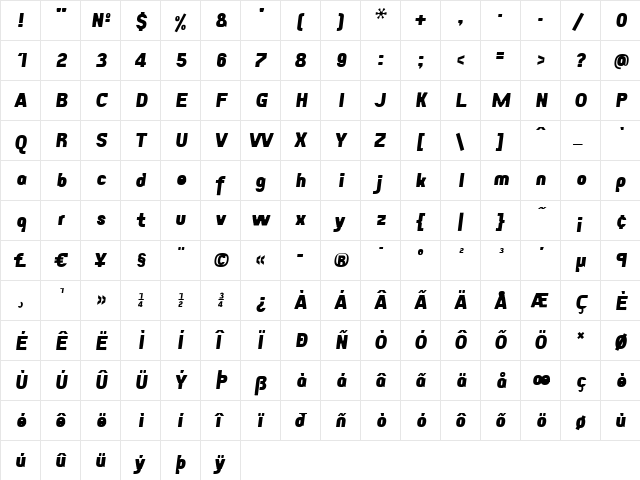
Eunuverse ItalicBold Font Preview
Eunuverse ItalicBold
Eunuverse ItalicBold Font Details
| Style | ItalicBold |
| Foundry | Eunuverse by Barry Deck. \ Barry Deck. Published by Thirstype |
Design Context for Eunuverse Typeface
Eunuverse offers clean, dependable letterforms without strong stylistic allegiance, making it a practical choice for designers who need flexibility. The slanted form adds forward momentum and visual energy. Its bold stroke weight gives it real presence on the page.